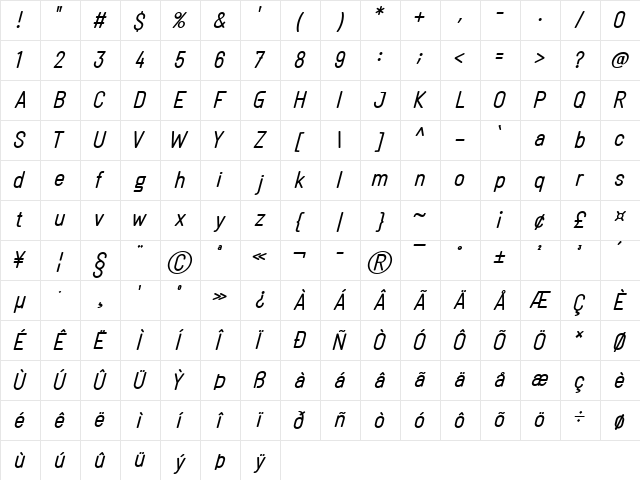
Linguineve Regular Italic
| Designer | Wahyu Saputra |
Design Context for Linguineve Typeface
Linguineve is a composed and adaptable typeface that performs quietly and consistently across a wide range of design contexts. The dynamic lean of this cut emphasises speed and emphasis in any layout.